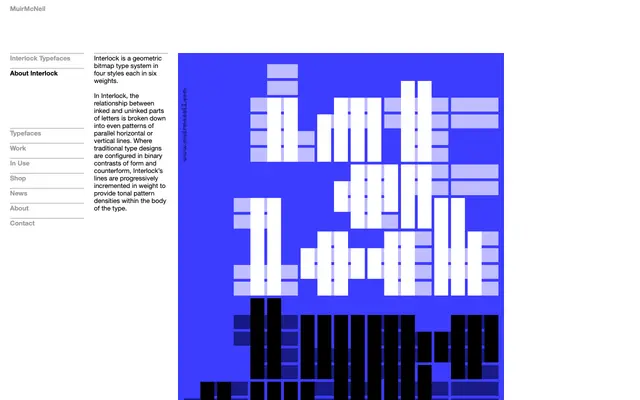
Interlock
A geometric bitmap type system built on a strict grid, designed to be layered and offset to generate tonal patterns and textures across four styles and six weights.
Interlock replaces conventional stroke contrast with even patterns of parallel horizontal or vertical lines, progressively incremented in weight to produce tonal densities within the letter body. All contours and spaces align to a shared grid, allowing the four styles to interlock precisely with one another and with corresponding rectangular background grids. In page layout, bitmap or vector software, styles can be stacked in exact register or calibrated offsets, with outlines, tints, colours and transparencies applied to build complex surface effects.
Interlock is a geometric bitmap type system built on a strict grid, with letterforms constructed from parallel horizontal and vertical lines of incremented weight rather than conventional stroke contrast. Its layering mechanics and tonal density patterns place it firmly in the display category.